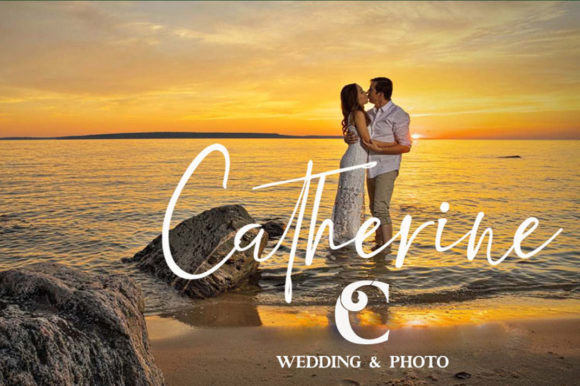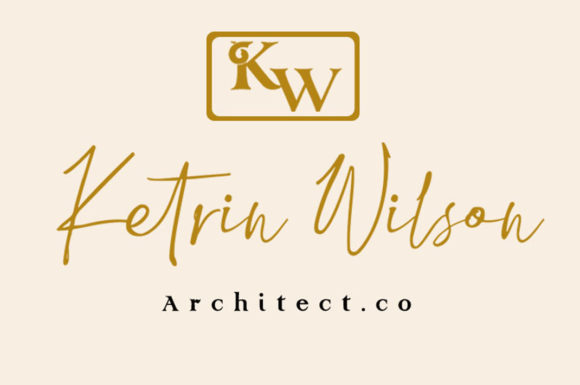
Aufal Seters Font: Elevate Your Designs with Elegance
In the world of typography, a well-crafted font can make all the difference in creating visually stunning designs. For designers and crafters seeking a touch of sophistication, Aufal Seters font is an exceptional choice. This incredible handwritten font is carefully created with a touch of elegance, making it perfect for a wide range of design applications.
The Beauty of Aufal Seters Font
Aufal Seters font boasts a neat and beautiful arrangement of letters, which sets it apart from other fonts. Its elegant strokes and carefully crafted letterforms make it an excellent choice for designs that require a touch of sophistication. Whether you’re working on a formal or non-formal project, Aufal Seters font is sure to impress.
One of the standout features of Aufal Seters font is its versatility. This font can be used in a variety of design applications, from formal events like weddings and corporate branding to non-formal projects like social media graphics and crafts. Its unique blend of elegance and approachability makes it an excellent choice for designers seeking a font that can adapt to different design contexts.
Why Choose Aufal Seters Font?
So, what makes Aufal Seters font an attractive choice for designers and crafters? Here are a few reasons:
- Elegance**: Aufal Seters font exudes elegance, making it perfect for designs that require a touch of sophistication.
- Readability**: The font’s neat and beautiful arrangement of letters ensures excellent readability, even at smaller font sizes.
- Versatility**: Aufal Seters font can be used in a wide range of design applications, from formal to non-formal projects.
- Uniqueness**: This font’s distinctive style sets it apart from other fonts, making it an excellent choice for designers seeking a unique look.
Using Aufal Seters Font in Your Designs
To get the most out of Aufal Seters font, here are some design tips:
- Pair with complementary fonts**: Combine Aufal Seters font with complementary fonts to create visual interest and hierarchy in your designs.
- Experiment with colors**: Aufal Seters font looks stunning in a variety of colors, so don’t be afraid to experiment and find the perfect hue for your design.
- Play with textures**: Add texture to your designs by combining Aufal Seters font with different textures and patterns.
In conclusion, Aufal Seters font is an exceptional choice for designers and crafters seeking a touch of elegance in their designs. With its neat and beautiful arrangement of letters, this typeface is sure to look outstanding in both formal and non-formal designs. Whether you’re working on a wedding invitation, a brand identity project, or a social media graphic, Aufal Seters font is an excellent choice. So why not give it a try and elevate your designs with the elegance of Aufal Seters font?